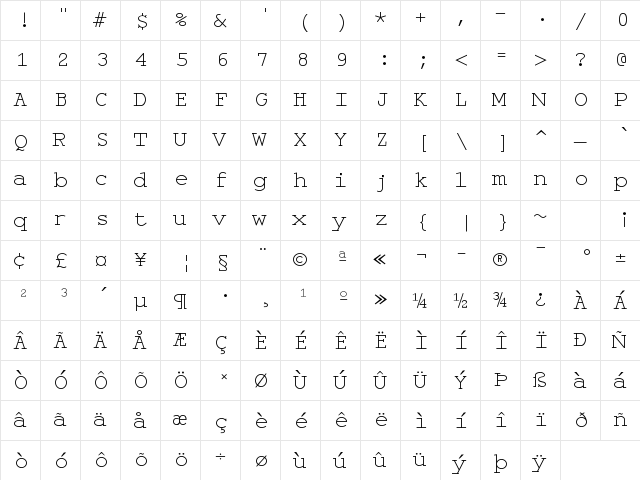
Monospace Medium Font Preview
Monospace Medium
Design Context for Monospace Typeface
Monospace brings the precise, column-aligned rhythm of monospaced typography to designs that value technical clarity and systematic order.